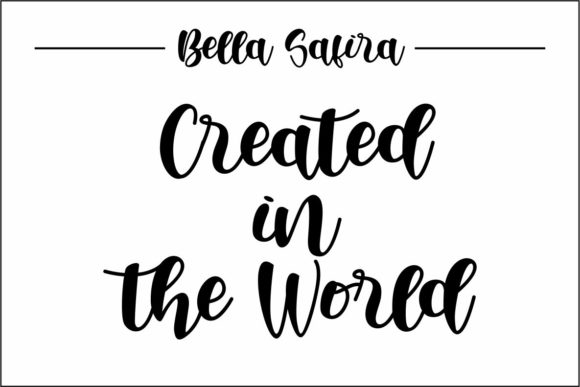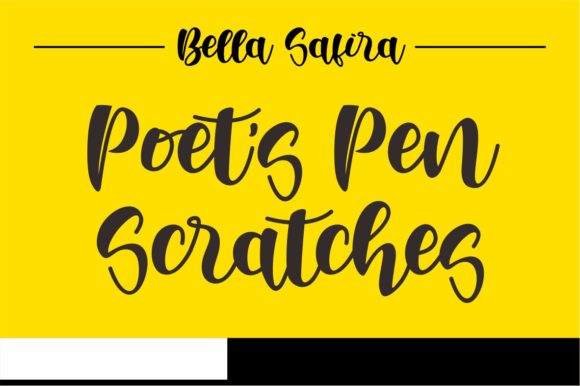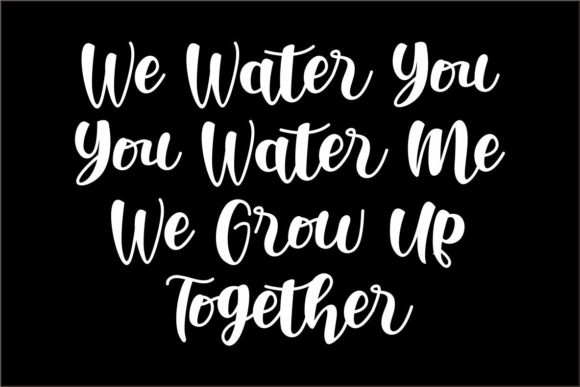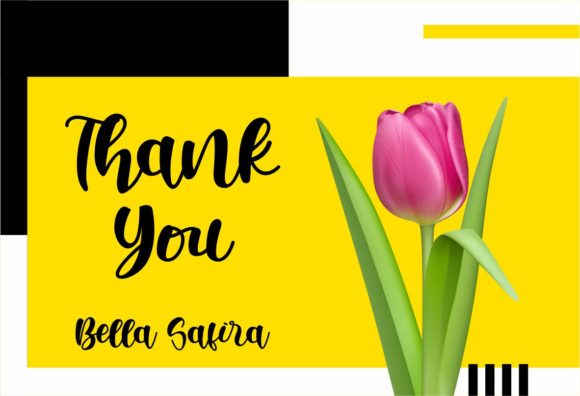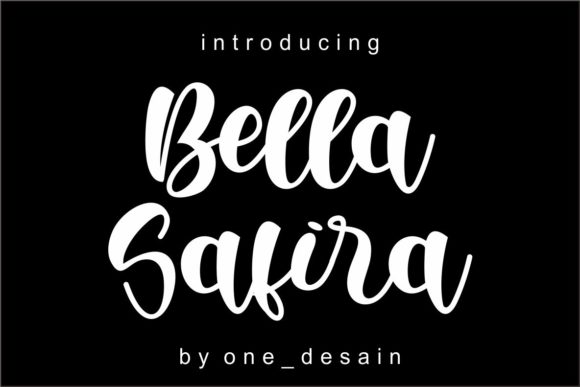
Bella Safira Font: Elevate Your Designs with Style and Sophistication
In the world of graphic design, typography plays a crucial role in conveying messages, evoking emotions, and creating visual identities. When it comes to selecting the perfect font for your projects, the options can be overwhelming. However, if you’re looking for a stylish, modern, and versatile brush font, look no further than Bella Safira. This stunning font is designed to give your designs a dynamic, powerful, and easy-to-read look with a modern twist, making it perfect for a wide range of applications.
What is Bella Safira Font?
Bella Safira is a beautifully crafted brush font that exudes elegance, sophistication, and style. Its unique, hand-brushed strokes give it a distinctive look that sets it apart from other fonts. Whether you’re working on a marketing campaign, designing a logo, or creating visual content for social media, Bella Safira is the perfect choice. Its modern design ensures that your text stands out, while its readability makes it easy for your audience to quickly grasp the message.
Key Features of Bella Safira Font
- Dynamic and Powerful Look: Bella Safira’s brush strokes give it a bold and dynamic appearance, making it perfect for headlines, titles, and marketing materials.
- Easy to Read: Despite its bold appearance, Bella Safira is surprisingly easy to read, making it suitable for longer texts and paragraphs.
- Modern Twist: The font’s modern design ensures that your designs look contemporary and fresh, perfect for brands looking to update their visual identity.
- Versatile: Bella Safira can be used across various design projects, from logos and branding to photography, invitations, and product packaging.
Use Cases for Bella Safira Font
Bella Safira’s versatility makes it an excellent choice for a wide range of design projects. Here are some of the ways you can use this stunning font:
- Marketing Overlay Text: Add a professional touch to your marketing materials with Bella Safira’s bold and modern look.
- Logos & Branding: Create a lasting impression with a custom logo or brand identity that showcases your unique style.
- Photography: Elevate your photography with stylish and elegant text overlays that complement your images.
- Invitations: Make your invitations stand out with Bella Safira’s beautiful, hand-brushed design.
- Watermarks: Protect your images with elegant and discreet watermarks that add a touch of sophistication.
- Advertising: Grab attention with bold and eye-catching ad copy that showcases your brand’s personality.
- Product Design: Add a personal touch to your product designs with custom labels, packaging, and branding.
- Stationery: Upgrade your stationery with stylish and modern designs that reflect your brand’s values.
- Wedding Designs: Make your wedding designs unforgettable with Bella Safira’s elegant and romantic look.
- Labels: Create custom labels for your products or gifts with a personal touch.
- Product Packaging: Stand out on store shelves with eye-catching packaging that showcases your brand’s personality.
Why Choose Bella Safira Font?
With so many fonts available, why choose Bella Safira? Here are a few compelling reasons:
- Unique Design: Bella Safira’s hand-brushed design sets it apart from other fonts, giving you a unique look that stands out.
- High Readability: Despite its bold appearance, Bella Safira is easy to read, making it perfect for a wide range of applications.
- Versatility: This font can be used across various design projects, making it a valuable addition to your font library.
- Modern Look: Bella Safira’s modern design ensures that your designs look contemporary and fresh.
| Font Name | Bella Safira Font |
In conclusion, Bella Safira is a stylish and versatile brush font that can elevate your designs to the next level. Its unique design, high readability, and modern look make it perfect for a wide range of applications, from marketing materials to product packaging. Whether you’re a designer, crafters, or business owner, Bella Safira is an excellent choice for anyone looking to add a touch of sophistication and style to their designs.